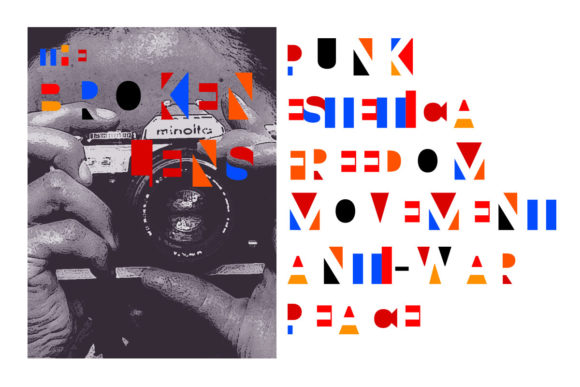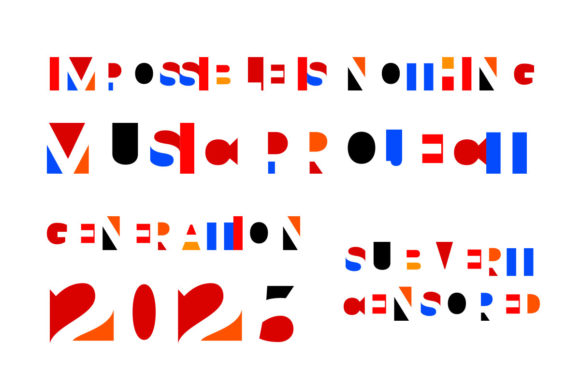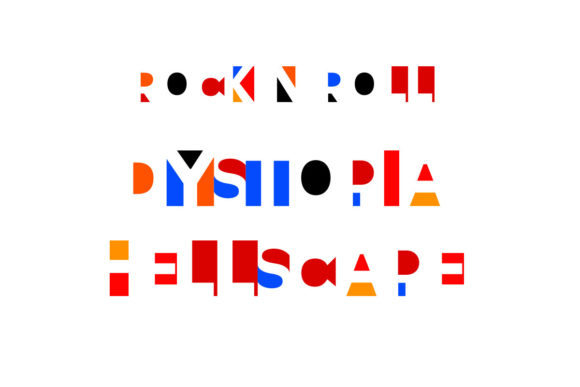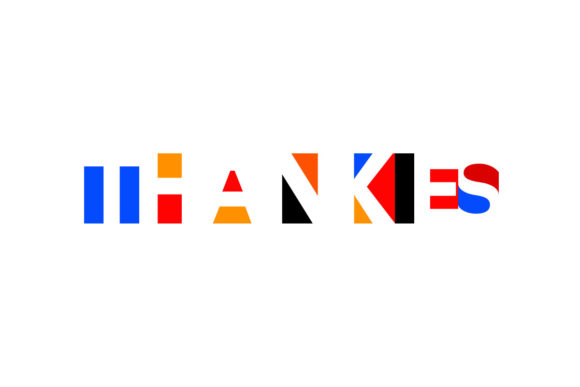
Reverso Color Font
About Reverso Color Font
Reverso Color is indeed a bold and artistic display font that injects a vibrant and dynamic element into your creative projects. With its unique design and punk aesthetic tone, this font is perfect for adding a D.I.Y. feel and a rebellious touch to your designs. The clever use of negative space and playful colors in Reverso Color creates an edgy and energetic vibe that is sure to make your project stand out from the crowd.
Whether you’re working on posters, album covers, or any other creative endeavor, Reverso Color will add an exciting and eye-catching element to your designs. Its bold letterforms and vibrant colors demand attention and create a sense of energy and rebellion. The font’s artistic style allows you to convey a sense of individuality and creativity in your designs, making them truly distinctive.
Unleash your creativity and let Reverso Color be your tool to take your designs to the next level. Embrace the font’s punk-inspired aesthetics and experimental nature, and watch as your projects come alive with an exciting and rebellious spirit. Whether you’re aiming for a D.I.Y. punk look or simply want to add an edgy twist to your designs, Reverso Color will be your perfect companion on this artistic journey.